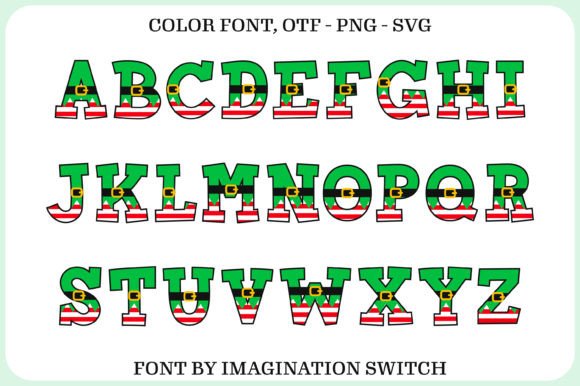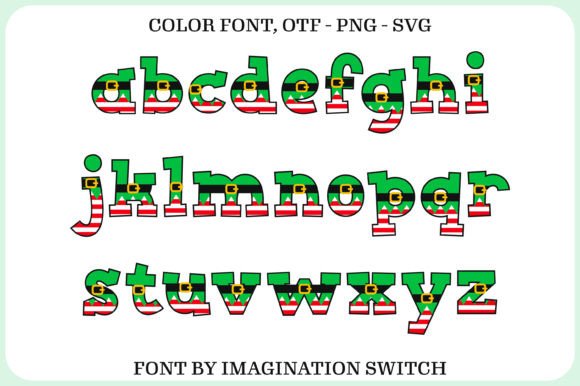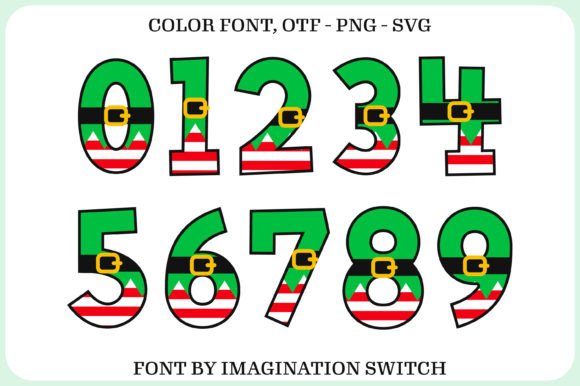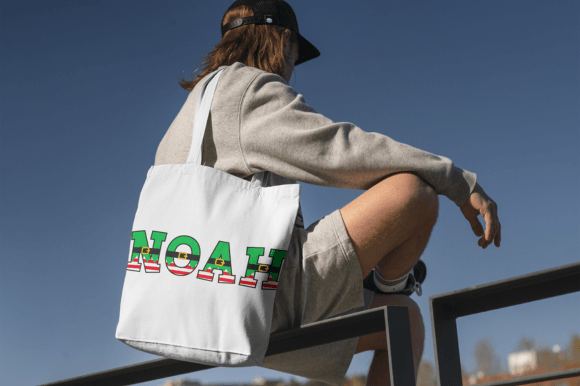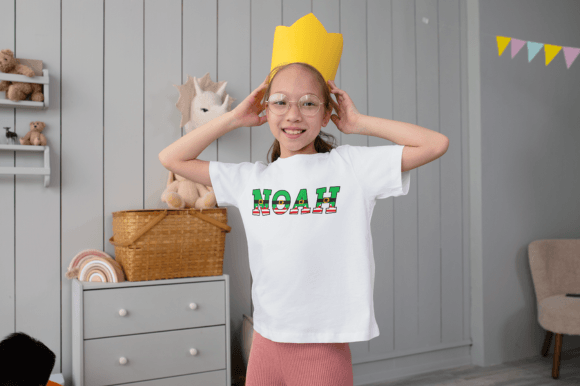
Introducing Elf Font: A Magical Typographic Creation
Are you looking for a font that can add a touch of magic to your designs? Look no further than the Elf Font, a captivating typographic creation that utilizes intriguing colors to enhance its visual appeal. This font is a game-changer for designers and crafters who want to add a unique and creative twist to their projects.
A Complete Set of Characters
The Elf Font is a meticulously designed font that includes a complete set of characters, including uppercase, lowercase, and numbers. This means that you have the flexibility to use it across various types of projects, from print designs to web designs, promotional materials, and more. Whether you’re creating a logo, a brochure, or a social media post, this font has got you covered.
Unique and Creative
When you utilize the Elf Font, you introduce uniqueness and creativity to your designs. The carefully chosen colors for each character add a mesmerizing visual touch, making each word and number stand out. This font is perfect for designers who want to create eye-catching designs that capture the attention of their audience. With the Elf Font, you can express your creativity in every project you undertake, crafting unforgettable designs with a unique color touch.
Versatile and Compatible
The Elf Font is suitable for a wide range of purposes, including print designs, web designs, promotional materials, and more. Its excellent legibility and visually appealing presentation make it an ideal choice for enhancing the visualization of your message. Whether you’re a designer, a crafter, or a DIY enthusiast, this font is perfect for you. The black version of this font is compatible with Cricut Design Space and other cutting machines, making it a great choice for crafters who want to create custom signs, banners, and other projects.
Tips for Using Elf Font
Here are some tips for using the Elf Font in your designs:
- Experiment with different colors and combinations to create unique and eye-catching designs.
- Use the font for headings, titles, and quotes to add a touch of magic to your designs.
- Pair the Elf Font with other fonts to create a contrasting and visually appealing design.
- Use the font for branding and marketing materials, such as logos, brochures, and business cards.